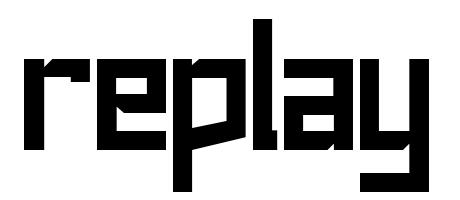
Replay
Replay is a bold, geometric sans-serif font, exuding a retro-futuristic vibe. Its clean lines and blocky letterforms evoke a sense of digital precision, yet the slightly uneven widths create a unique, almost handcrafted feel. It's a font that’s both stark and playful, perfect for titles demanding attention.